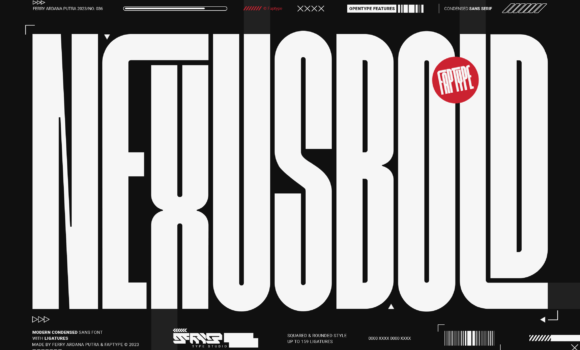
nexusbold
Nexusbold Font – Free Download Introduction to Nexusbold Font Introducing Nexusbold, a modern condensed sans font that redefines typographic excellence. 📸 Preview Gallery 6 images 📌 Product Name Nexusbold Font 👤 Author Ardana Creative 📂 Category Explore ⬇️ Download Nexusbold